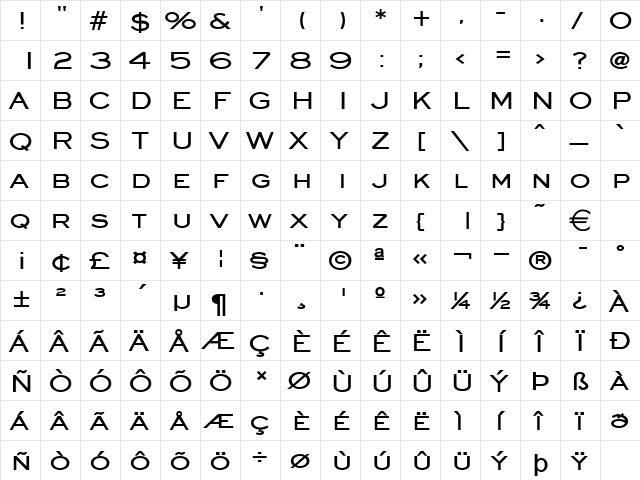
EyeglassWide Bold
Design Context for EyeglassWide Typeface
EyeglassWide takes a measured approach to typography — its balanced proportions and neutral character make it a reliable workhorse for both digital and print work. The heavy weight commands attention and anchors typographic hierarchies.